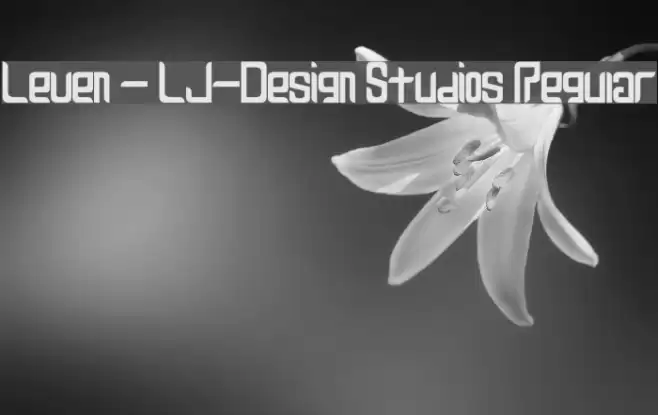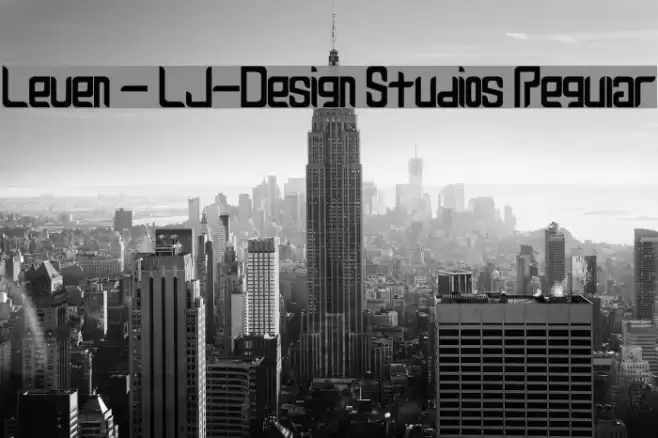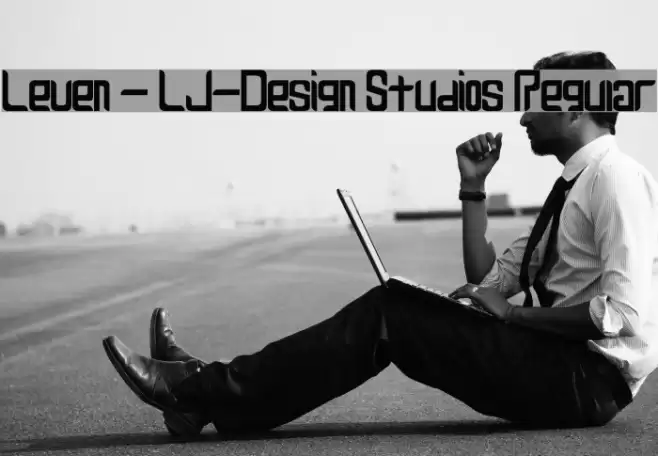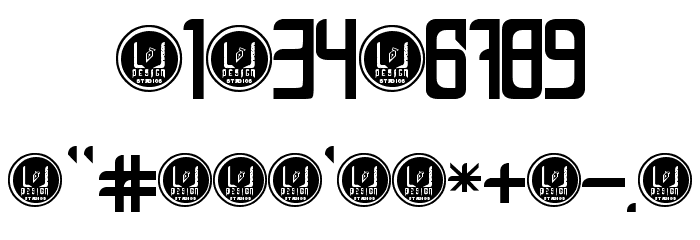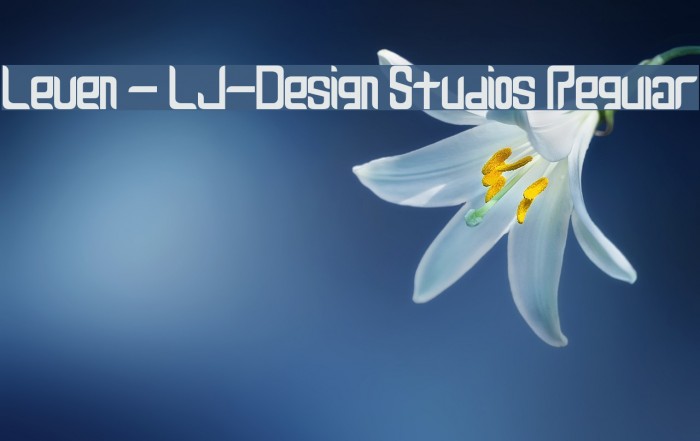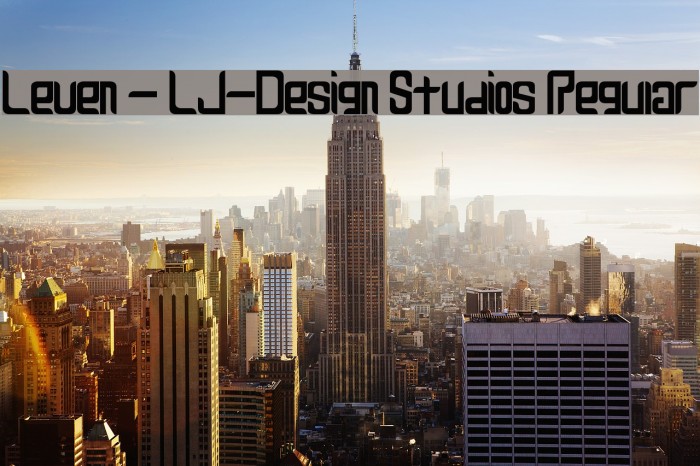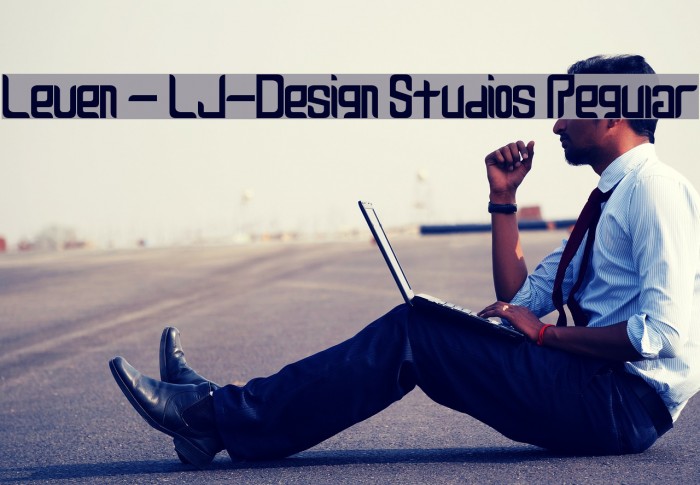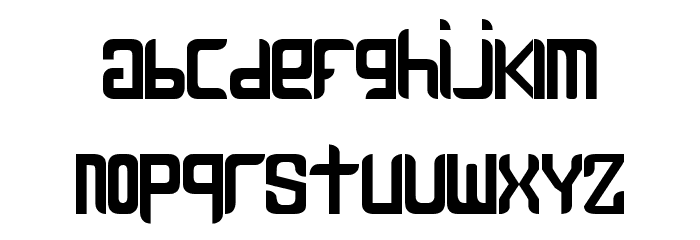
Leven - LJ-Design Studios Regular Font
Leven - LJ-Design Studios Regular Description
This font features a bold and modern design with a geometric structure. The characters are crafted with a unique blend of sharp angles and smooth curves, giving it a futuristic and tech-inspired appearance. The uppercase letters are particularly striking, with a uniform height and consistent stroke width, while the lowercase letters maintain a similar style with slightly more variation in form. The numerals are clear and easy to read, matching the overall aesthetic of the font. Special characters are included, maintaining the same stylistic elements. This font is ideal for projects that require a contemporary and innovative look.
A bold, modern font with geometric and futuristic design elements from Uncategorized fonts.
- Proposed Projects: Ideal for tech branding, modern advertising, digital interfaces, and futuristic-themed designs.
- Overall Style: Futuristic
- Use Case: Headlines, Logos, Digital Interfaces